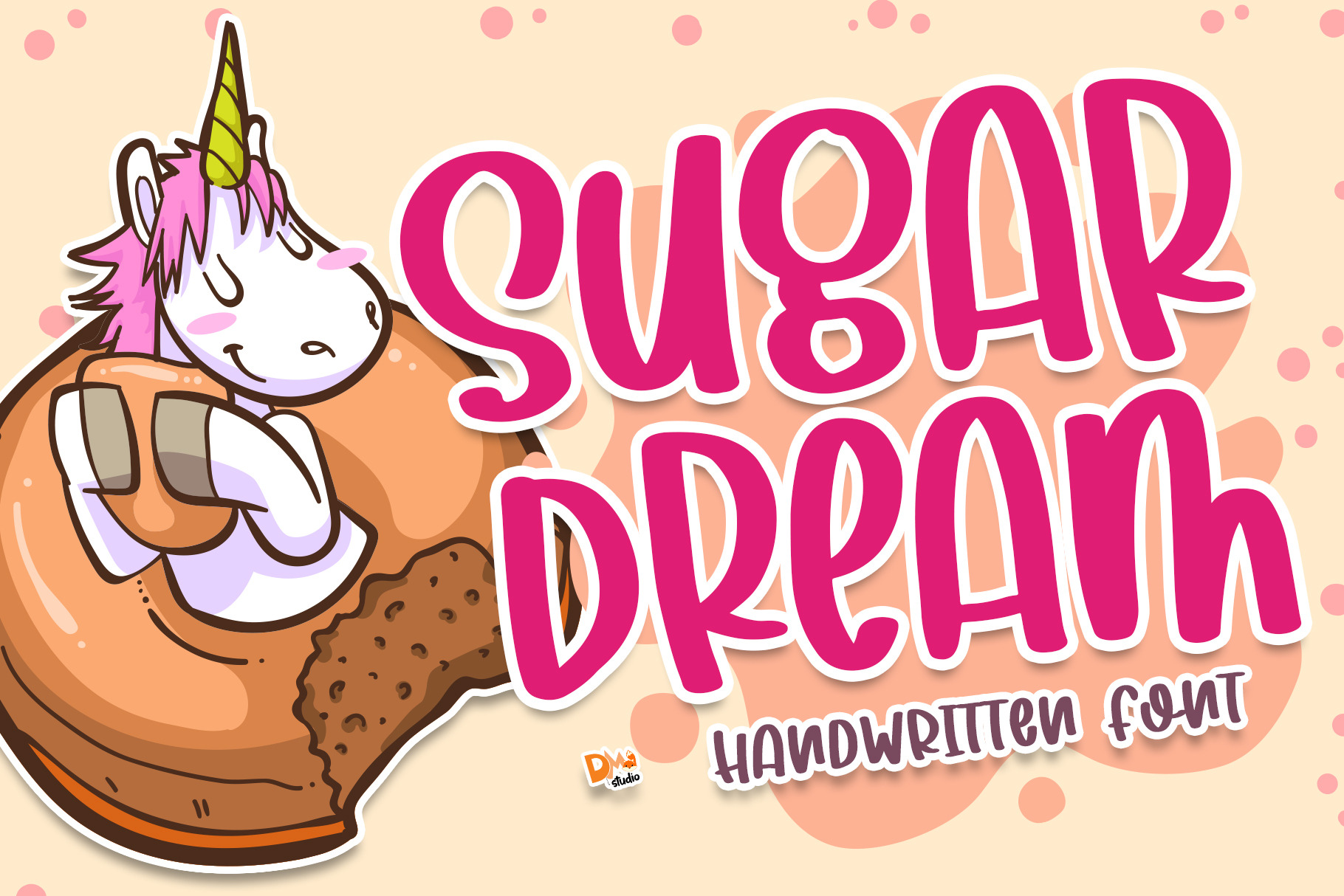
Sugar Dream - Handwritten Font
Sugar Dream is a cute and fun handwritten font. Great for your crafting and so playful !
- Mix cased characters
- Numeric